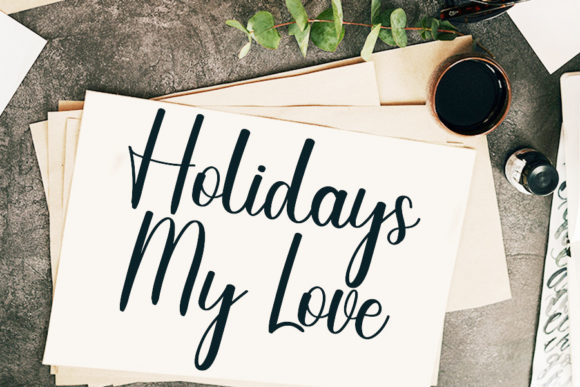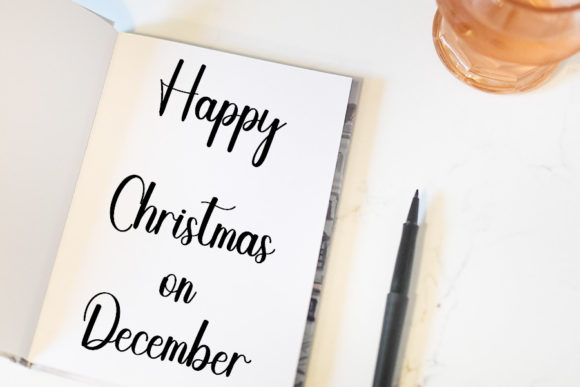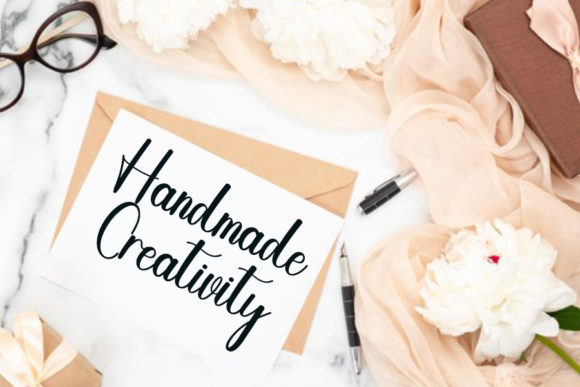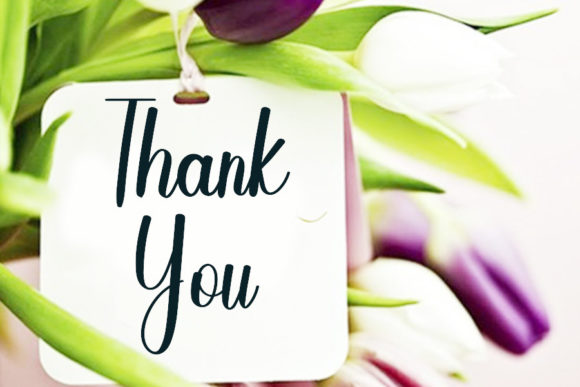
When Words Come Alive
Have you ever stared at a blank page, searching for the perfect words to bring your creative vision to life? The blank page stares back, taunting you with its emptiness, until suddenly, the right phrase emerges, and your design takes off. This is the magic of typography, where the right font can make all the difference.
Enter the enchanting world of the Carabella Font, a charming script font that brings a touch of whimsy and playfulness to your designs. With its PUA encoded features, you can unlock a world of creative possibilities, from elegant titles to playful headings. Whether you’re a seasoned designer or a budding creative, the Carabella Font is an invaluable tool that will help you add a dash of personality to your work.
Carabella Font Key Features
- Character Set: It includes a wide range of characters, including uppercase and lowercase letters, numbers, punctuation, and special characters.
- Unique Characteristics: Carabella font features a unique, elegant script style with flowing connections between letters, making it perfect for creative and artistic applications.
Carabella Font Review
As a designer, I had the opportunity to work with the Carabella font, and I must say it’s a unique and interesting typeface. ✨ The font’s elegant, cursive script makes it perfect for adding a touch of sophistication to wedding invitations, greeting cards, and other formal documents. ✨ The variety of styles and weights within the font family also allows for a lot of versatility in its usage. ✨
However, there are some limitations to consider. ⚠️ The font can be quite ornate, which may make it difficult to read for some users. ⚠️ Additionally, the font’s cursive nature can make it challenging to use for body text, as it can be quite dense and may require adjustments to line spacing. ⚠️
In terms of overall impression, I would say that the Carabella font is a great choice for designers who want to add a touch of elegance and sophistication to their projects. However, it may not be the best choice for every project, especially those that require clear and concise body text.
- Unique, elegant script style
- Perfect for formal documents and invitations
- Versatile font family with multiple styles and weights
- Can be challenging to read for some users
- May not be suitable for body text
Carabella Font Practical Application Guide
Alternatives to Carabella Font for Designers
Great Vibes Font is a modern and elegant script font that is perfect for creating a sophisticated and luxurious feel. It is ideal for use in branding, advertising, and editorial design. Great Vibes Font is similar to Carabella Font in its flowing and cursive nature, but has a more refined and polished look.
Alex Brush Font is a beautiful and elegant script font that is perfect for creating a high-end and luxurious feel. It is ideal for use in branding, packaging, and editorial design. Alex Brush Font is similar to Carabella Font in its flowing and cursive nature, but has a more refined and delicate look.